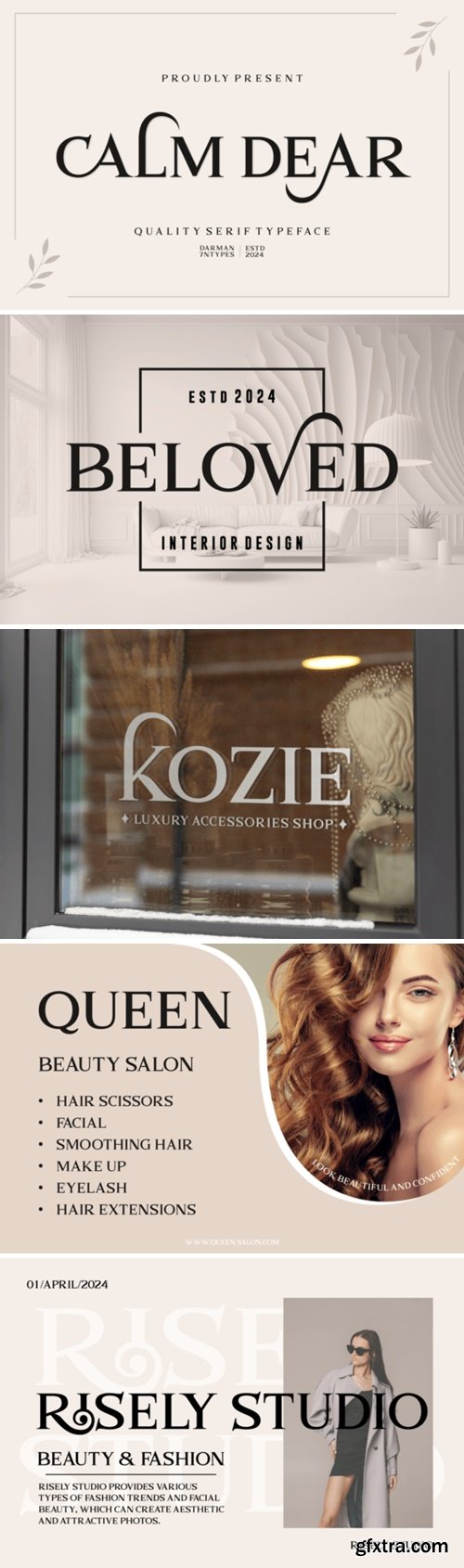
Introducing a luxurious and stylish serif font that is all about elegance and beauty. Perfect for all your wedding lettering requirements or any popular calligraphy needs. This smooth, clean, and modern font adds a touch of fun to your design projects. It’s the ideal font for poster mock-ups, label designs, or an impressive logo type elevating your greeting cards, covers, and branded cards.